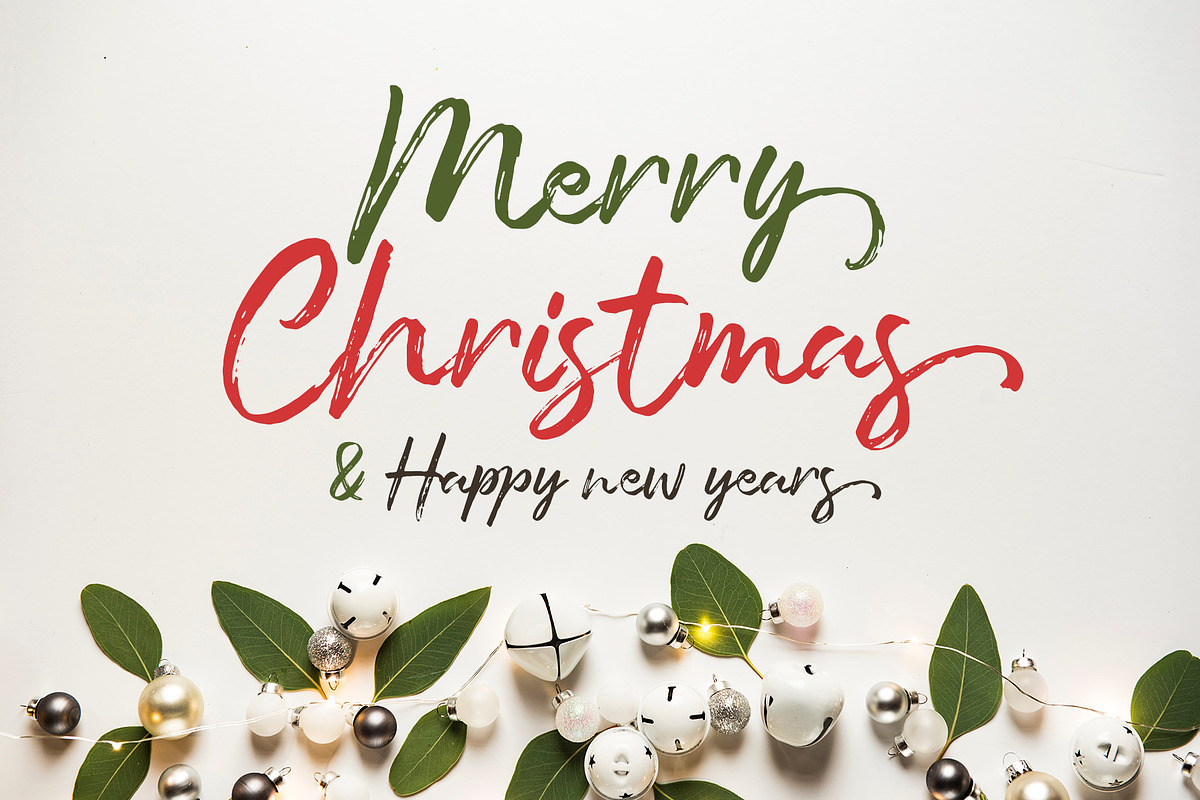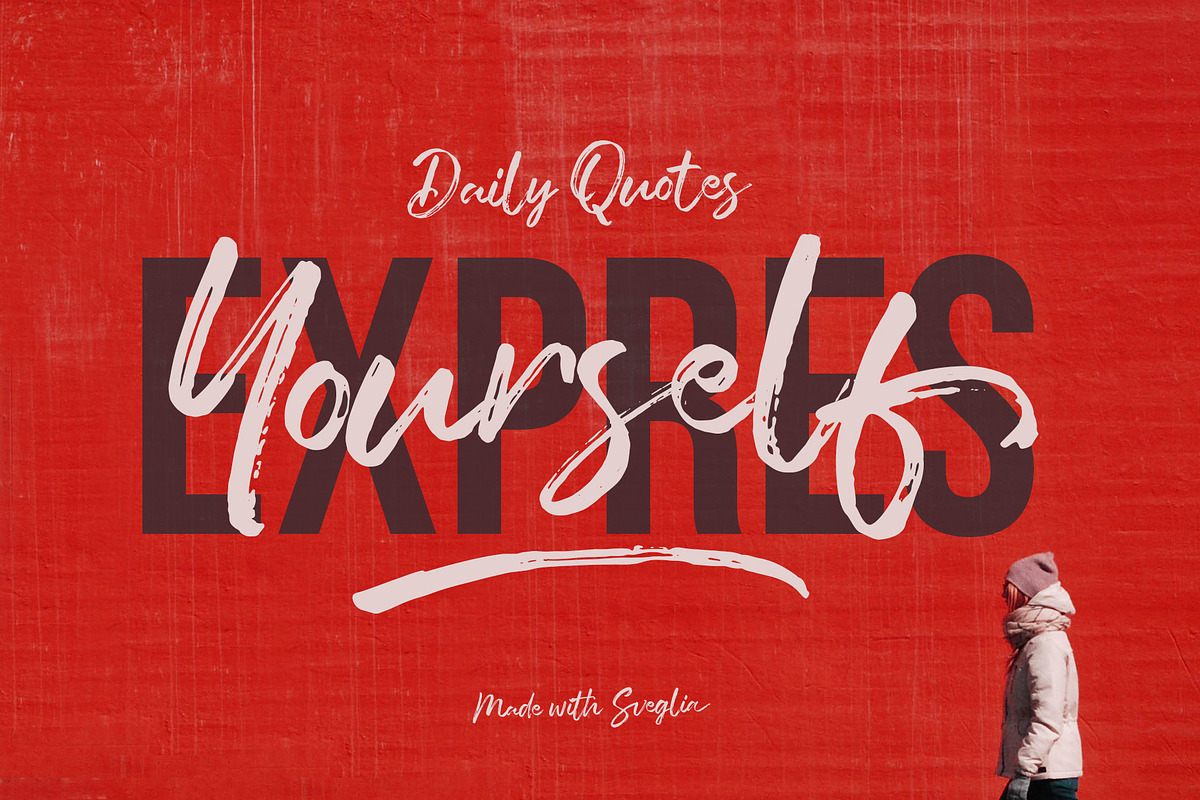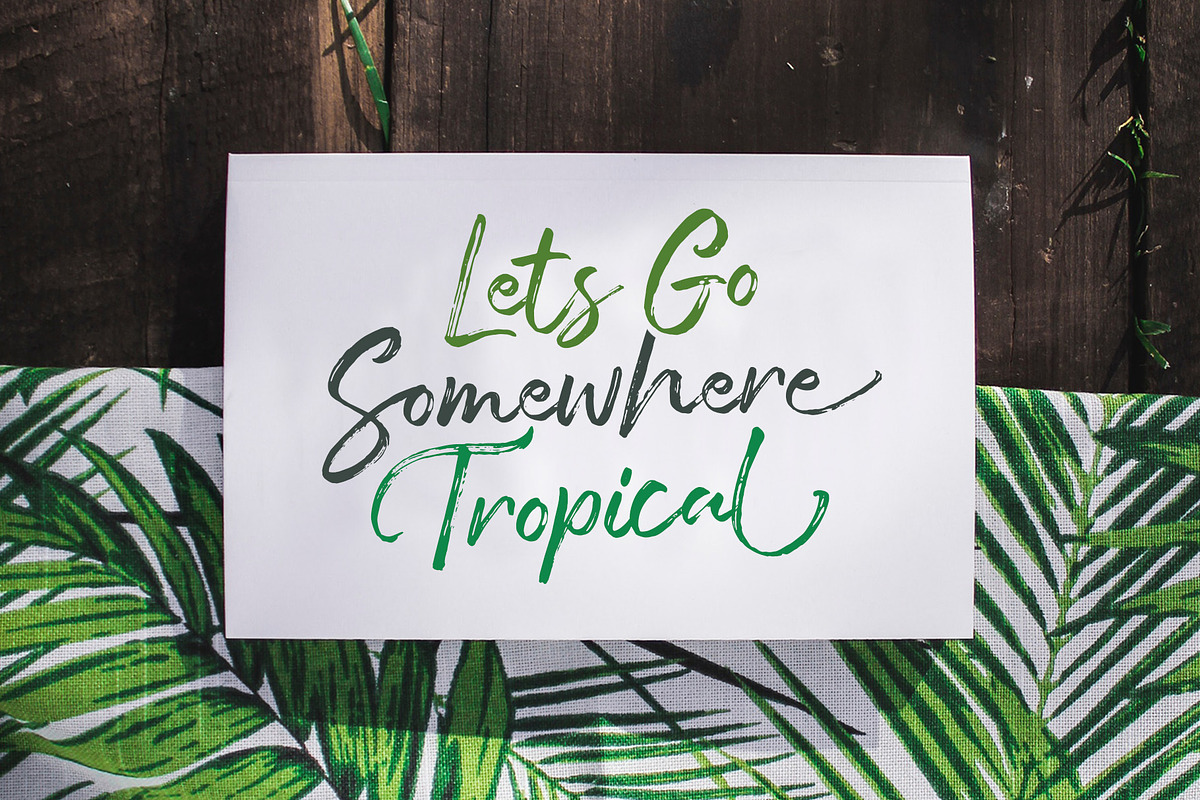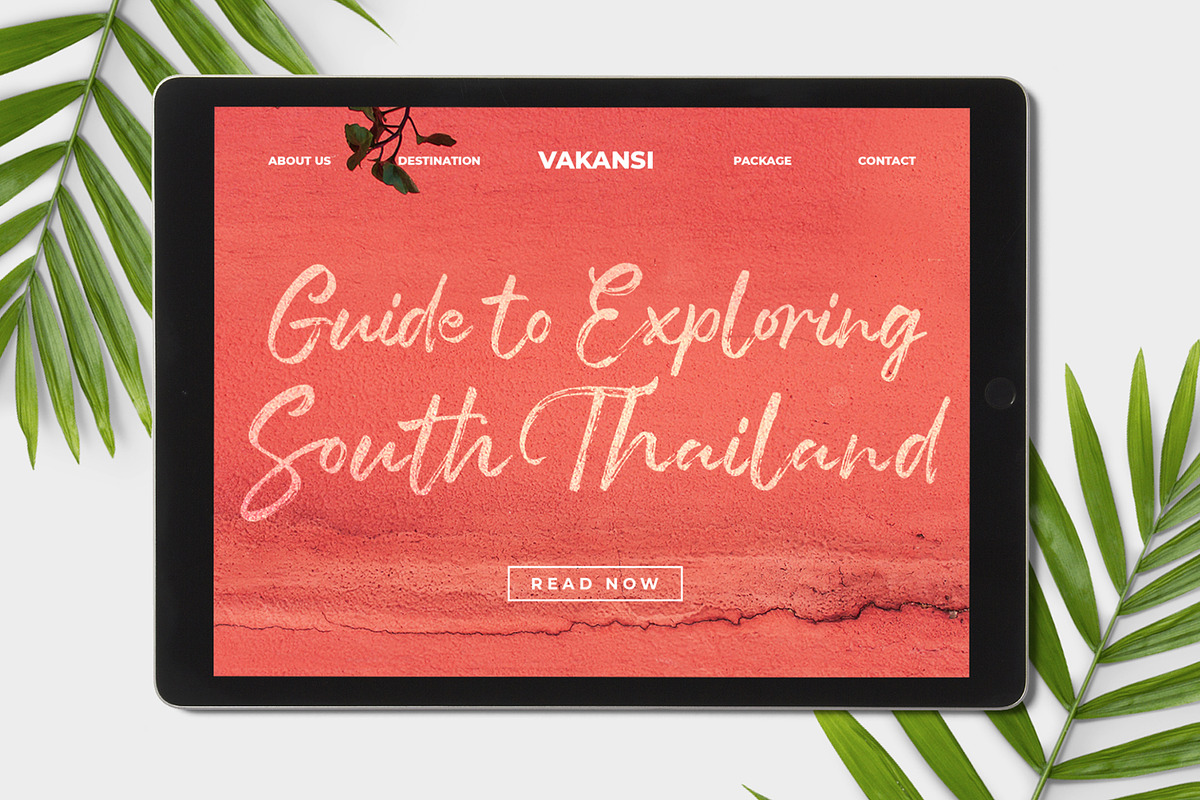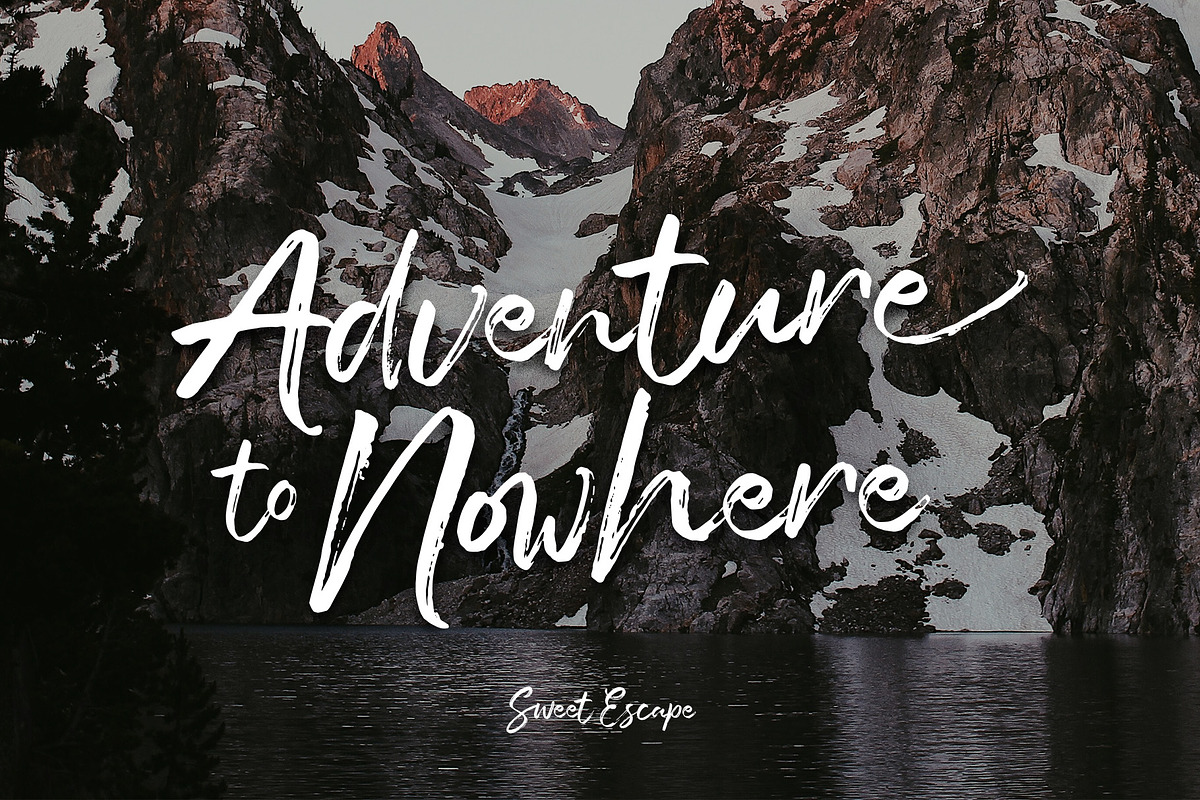
Sveglia
Sveglia is a hand brush casual script font inspired by urban fashion. This font is great for your next creative project such as Logotype, printed quotes, invitations, cards, product packaging, headers, Letterhead, Poster, Apparel Design, Label, and etc.
Sveglia comes with uppercase, lowercase, numerals, punctuations and so many variations on each character include OpenType alternates, and common ligatures to let you customize your designs.